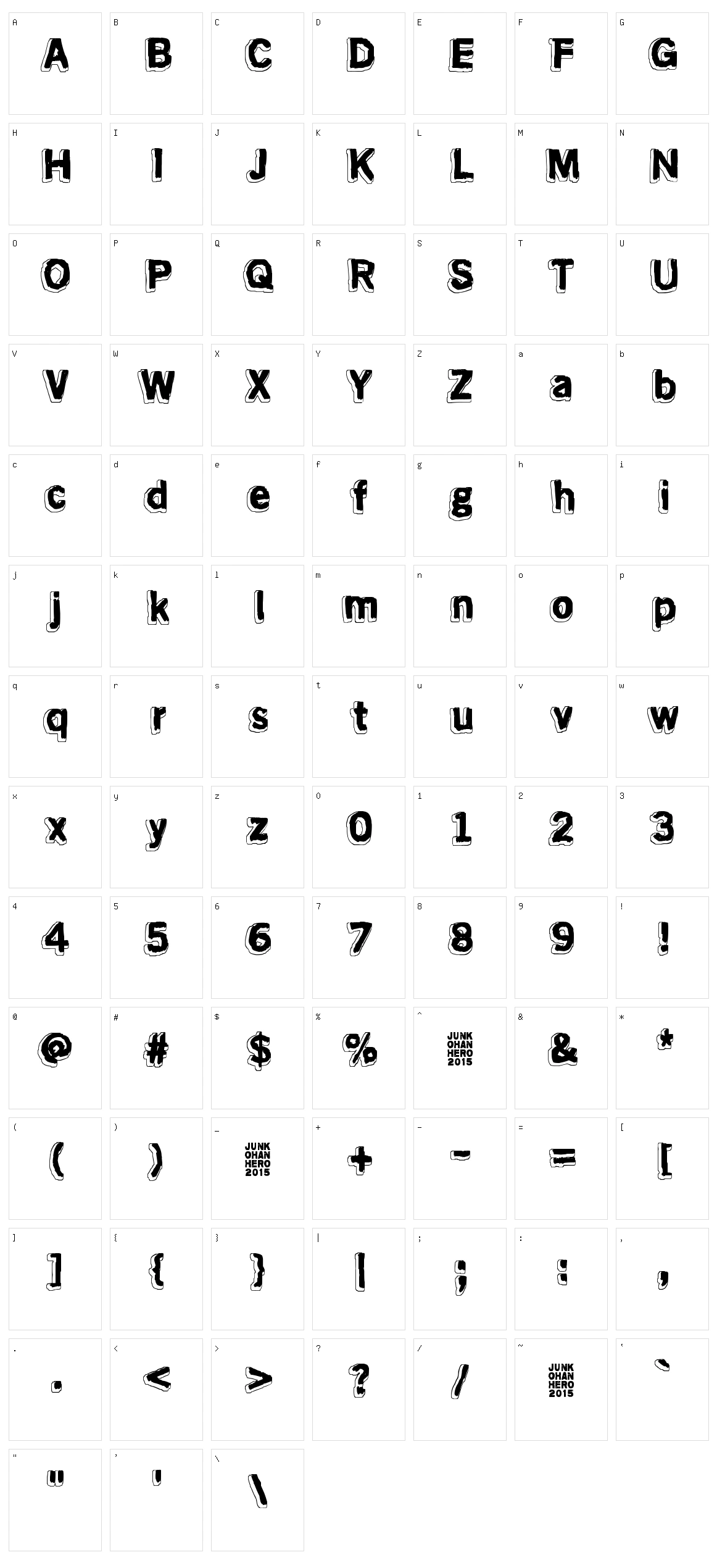
The free font Almost like the blues is carefully designed by junkohanhero, showcasing a thoughtful balance of creativity and usability and falls under the Eroded font style. When you download the ZIP file, it contains only 284.07 KB of font files, making it lightweight and quick to download. Please review the license details below to understand permitted usage and distribution rights. If license information is not available, we recommend using this font for personal projects only or contacting the author directly for commercial usage permissions.